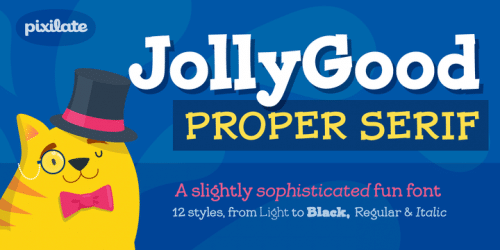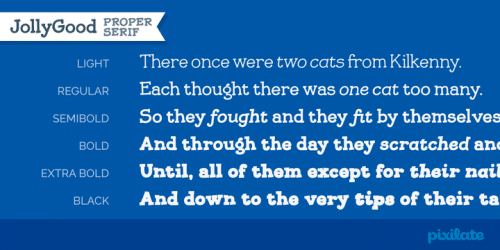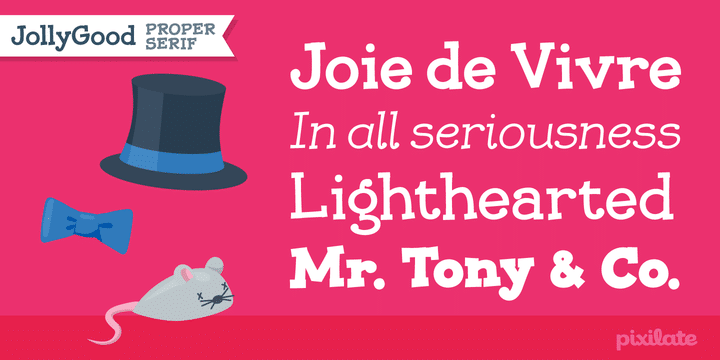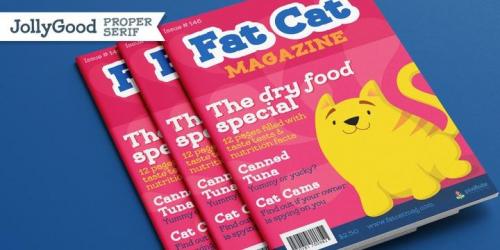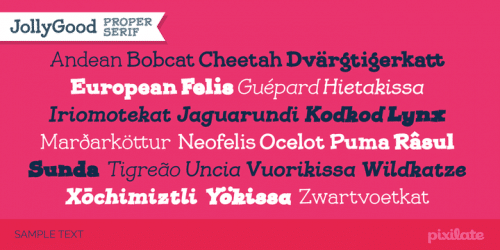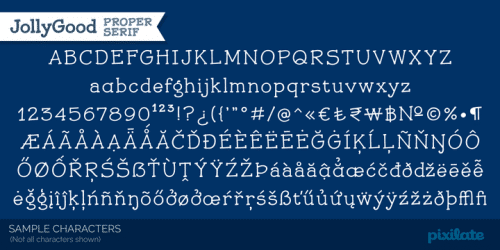
What do you get if you mix a proper serif typeface with cartoony fun? JollyGood Proper Serif! A whimsical font legible enough to work in longer texts, it’s perfect for childrens’ books and magazines.
It is a complete family with 6 weights in regular and italic (12 fonts in total). It has an amazing character set, with support for most european languages, as well as alternates and ligatures.
- Designer: Kemie Guaida Ortega